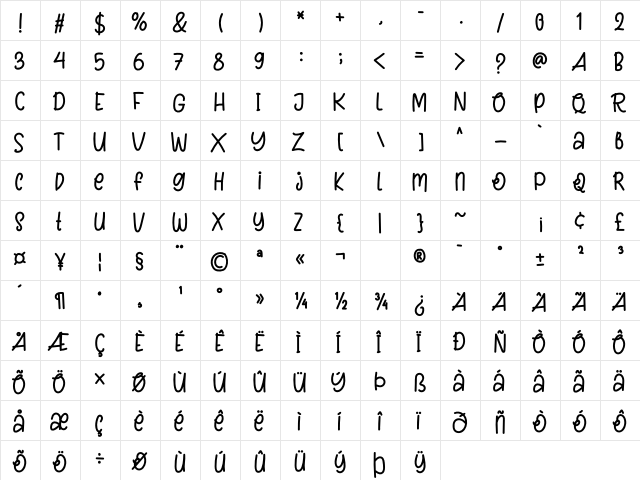
Brown Sugar Regular
| Foundry | EmbunStudio |
| Designer | Aditya Rezki Apriyadi |
Design Context for Brown Sugar Typeface
Brown Sugar is a composed and adaptable typeface that performs quietly and consistently across a wide range of design contexts.